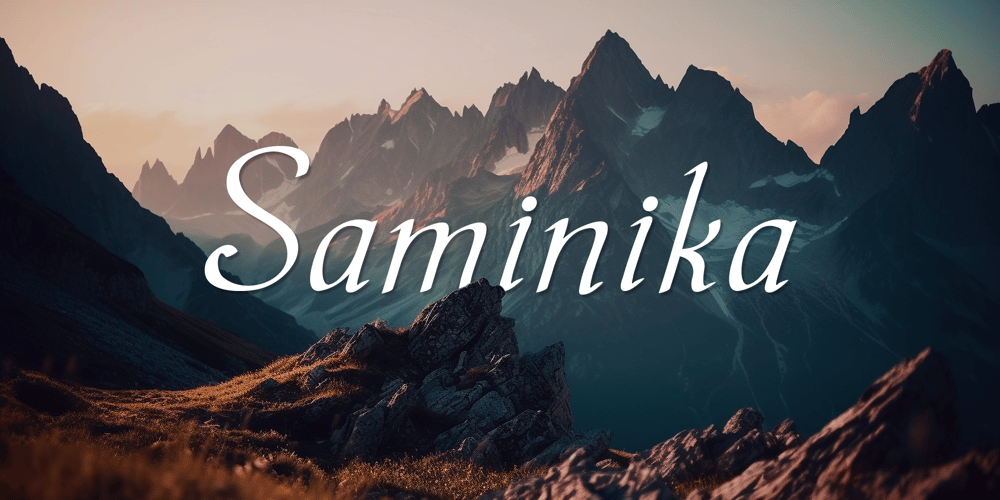
Saminika Font Family was designed by Alisa Voloshina and published by AVFontoria. Saminika contains 1 styles and family package options. Our new font is the epitome of elegance and refinement. Its smooth lines and intricate curls create a unique image, placing it in the category of decorative scripted fonts. The font contains a complete set of characters, including Latin, Cyrillic and numbers, making it a versatile tool for designers. Despite the decorative character, the font has a moderate contrast and remains readable enough to be used for both headings and text blocks. Thanks to its versatility, the font is ideal for a wide range of projects: from creating elegant logos and business cards to designing books and invitations.